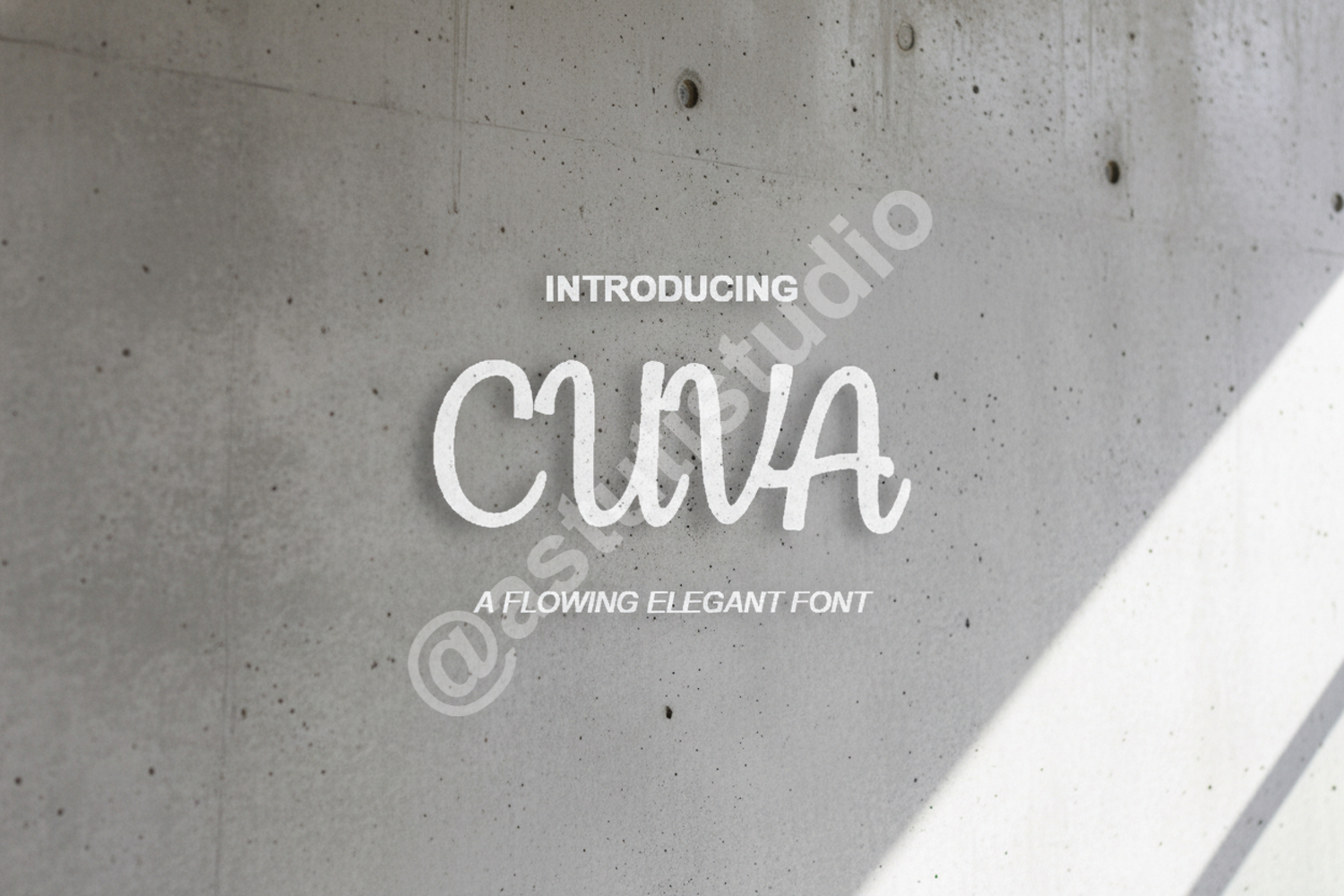
Cuva - Modern Minimalist Sans-Serif Typeface
Cuva
Elevate your design projects with Cuva, a premium sans-serif typeface that embodies modern sophistication and clean aesthetics. Designed with a focus on geometric balance and legibility, Cuva offers a timeless look that adapts seamlessly to both digital and print environments. Whether you are crafting a high-end brand identity or a sleek website interface, this font provides the professional edge your work deserves.
- Smooth Kerning for a polished finish
- Branding and Visual Identity: Perfect for creating memorable logos and corporate stationary.
- Editorial Design: Ideal for magazine headlines, body text, and book layouts.
- Digital Marketing: Enhances social media graphics, web banners, and app interfaces.
- Luxury Packaging: Adds a touch of elegance to product labels and boxes.
- Minimalist Projects: The go-to choice for clean, distraction-free typography.